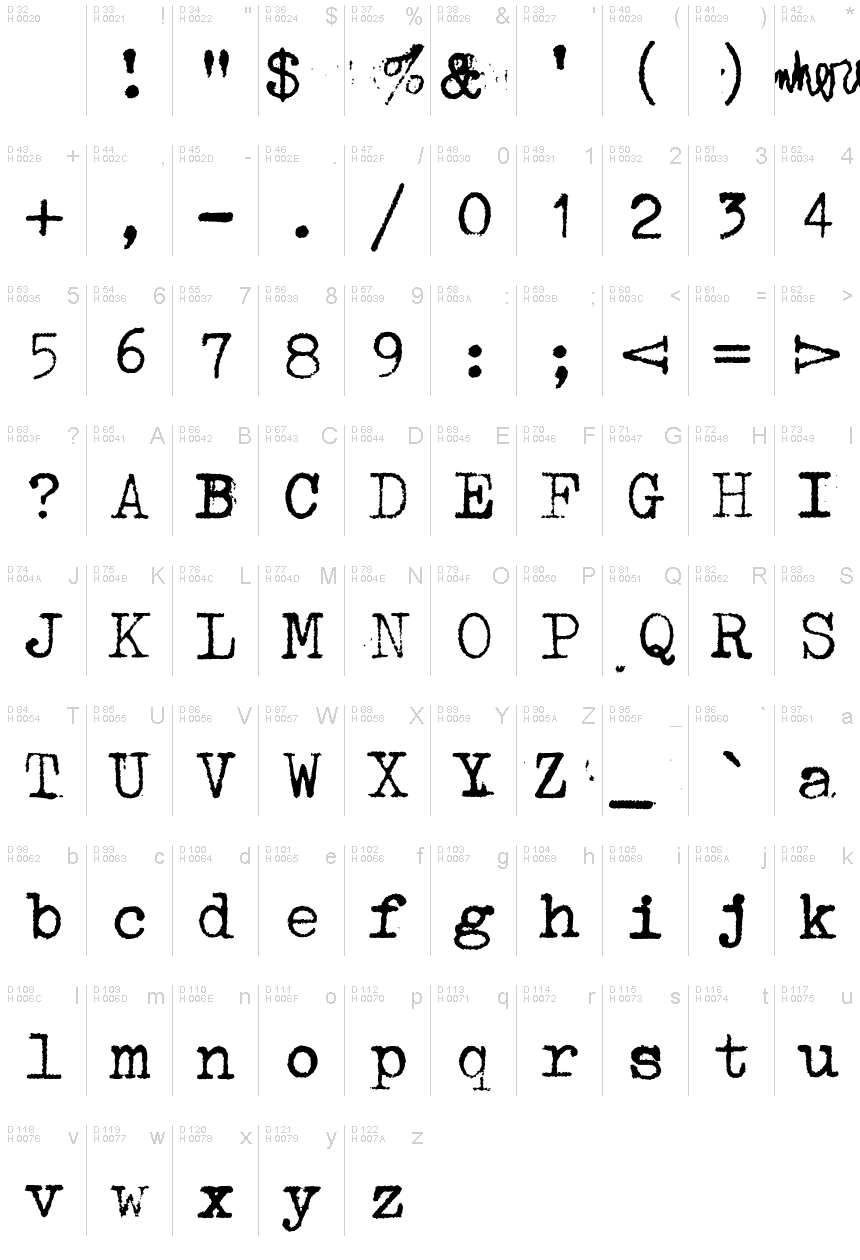
Mechanical Machine
Mechanical Machine is a striking display font that exudes a sense of industrial grit and raw power. Designed by junkohanhero, this eroded typeface boasts bold, angular letterforms that convey a sense of rugged utility. The uneven, weathered texture evokes the worn surfaces of machinery, lending the font an authentic, utilitarian aesthetic.
Mechanical Machine's unique character makes it an excellent choice for a variety of design applications, from editorial layouts and product branding to packaging and signage. Its bold presence lends itself well to bold headlines, while the textural quality can add visual interest to smaller-scale text. This font's versatility allows designers to craft compelling, visually-striking designs that capture the essence of the industrial world.